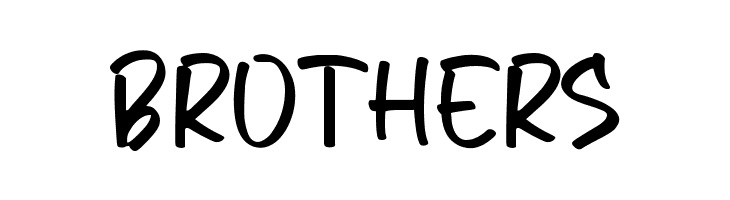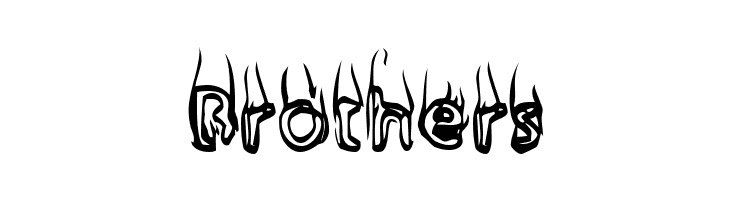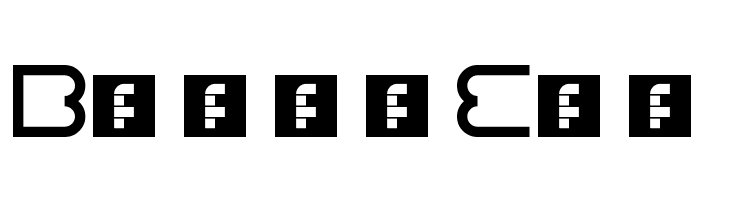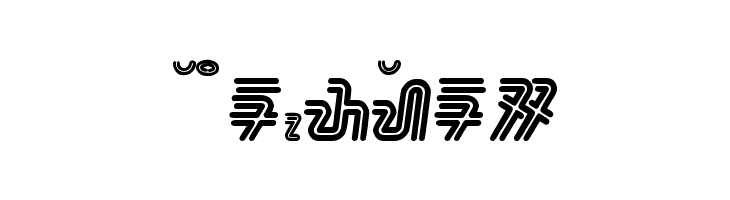
A dynamic and flowing script font with elegant, cursive letterforms.
A playful handwritten font with smooth, flowing lines and a casual aesthetic.
A modern, geometric sans-serif font with a clean and balanced design.
A modern, decorative font with elegant uppercase and script-like lowercase letters.
A bold, dynamic font with angular strokes and sharp serifs, blending modern and vintage styles.
A bold, playful script font with a smooth, handwritten style.
A dynamic and elegant script font with fluid, cursive strokes.
A dynamic, cursive handwritten font with fluid strokes and elegant connections.
A bold, ornate blackletter font with a medieval, gothic style.
A bold, ornate blackletter font with intricate details and gothic flair.
A dynamic and elegant script font with smooth, flowing letterforms.
A modern, geometric sans-serif font with a clean and professional look.
A modern, semi-bold italic sans-serif font with smooth strokes and medium contrast.
A cursive, handwritten-style font with elegant, flowing strokes.
A fluid, elegant script font with a natural handwriting style.
A bold, playful font with thick, rounded strokes and a whimsical style.
An elegant and flowing script font with ornate uppercase letters and graceful lowercase forms.
A casual, handwritten font with a playful and informal style.
A flowing, cursive script font with elegant loops and swashes.
A bold, playful handwritten font with dynamic strokes.
A bold, flame-inspired font with dynamic, energetic characters.
A flowing, cursive font with elegant, interconnected strokes.
A bold, expressive font with a hand-painted, brush-like appearance.
A playful, rounded font with a friendly and approachable style.
A bold, rounded font with a playful and professional style.
A bold, italic font with smooth curves and a slightly slanted style.
A smooth, flowing italic font with elegant curves and dynamic slant.
A bold, decorative font with a shadow effect and intricate flourishes.
A bold, rounded font with a friendly and modern appearance.
A modern, rounded typeface with an extra-light weight and uniform stroke width.
A bold, rounded font with a friendly and robust appearance.
A modern, rounded font with a clean and approachable design.